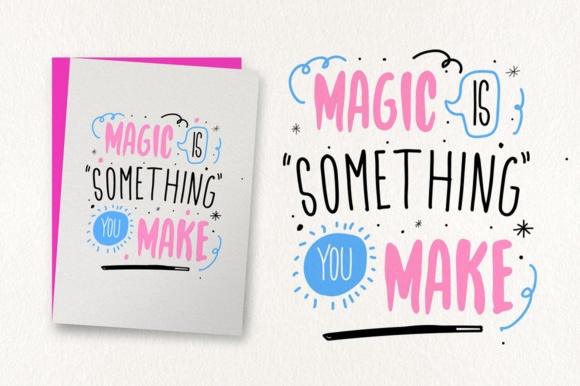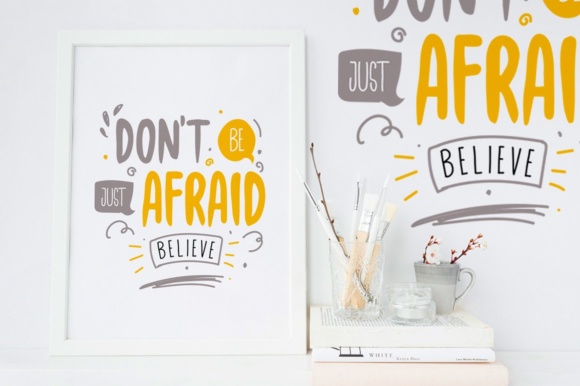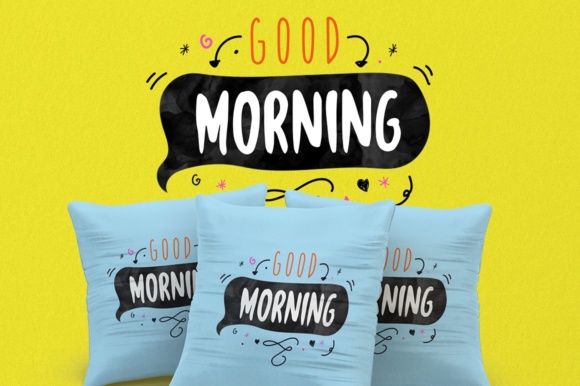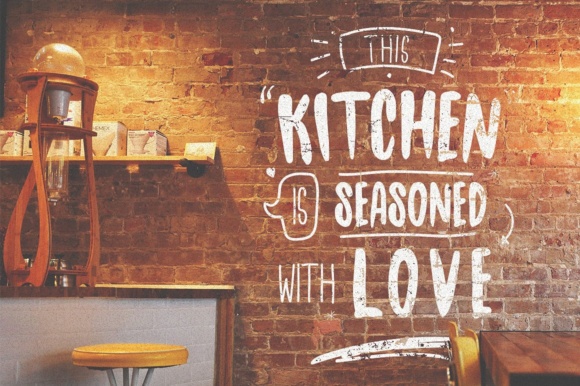
HomeScript FontsChamberline Font Script Fonts Chamberline Font FacebookXPinterestWhatsApp Chamberline Font Poster 2 Chamberline Font Poster 3 Chamberline Font Poster 4 Chamberline Font Poster 5 About Chamberline Font The Chamberline is a lovely hand lettered typeface. It comes in a regular and strokes version. DOWNLOAD ON CREATIVE FABRICAThis font is sold and delivered by Creative Fabrica. Font Canyon may earn a commission if you buy through this link. People also explored Blocky Monogram Font Moonflower Font Anthena Script Font Saturday Font Honey Butterfly Font Girly Stuff Font Burgeon Font Bitter Coffee Font Qatielia Family Font 382 0 TagsChamberline Font Previous articleHolihood Script FontNext articleBorn Losers Font LEAVE A REPLY Cancel reply Comment: Please enter your comment! Name:* Please enter your name here Email:* You have entered an incorrect email address! Please enter your email address here Website: Save my name, email, and website in this browser for the next time I comment. Personal Use Free Tanpax Personal Use Free Read more about this font Multicolore Personal Use Free Read more about this font Retro Poster Personal Use Free Read more about this font Bellarin Personal Use Free Read more about this font BLOG Best Fonts for YouTube Videos: Make Your Thumbnails Stand Out Best Fonts for YouTube Videos: Make Your Thumbnails Stand Out Choosing the right font can make a massive difference in how your YouTube videos perform.... Top 10 Handwritten Fonts That Elevate Your Designs Free Fonts Risk: Why Free Fonts Can Be Dangerous for Designers How to Cut Any Font on Cricut: Convert a Font to SVG (Free)